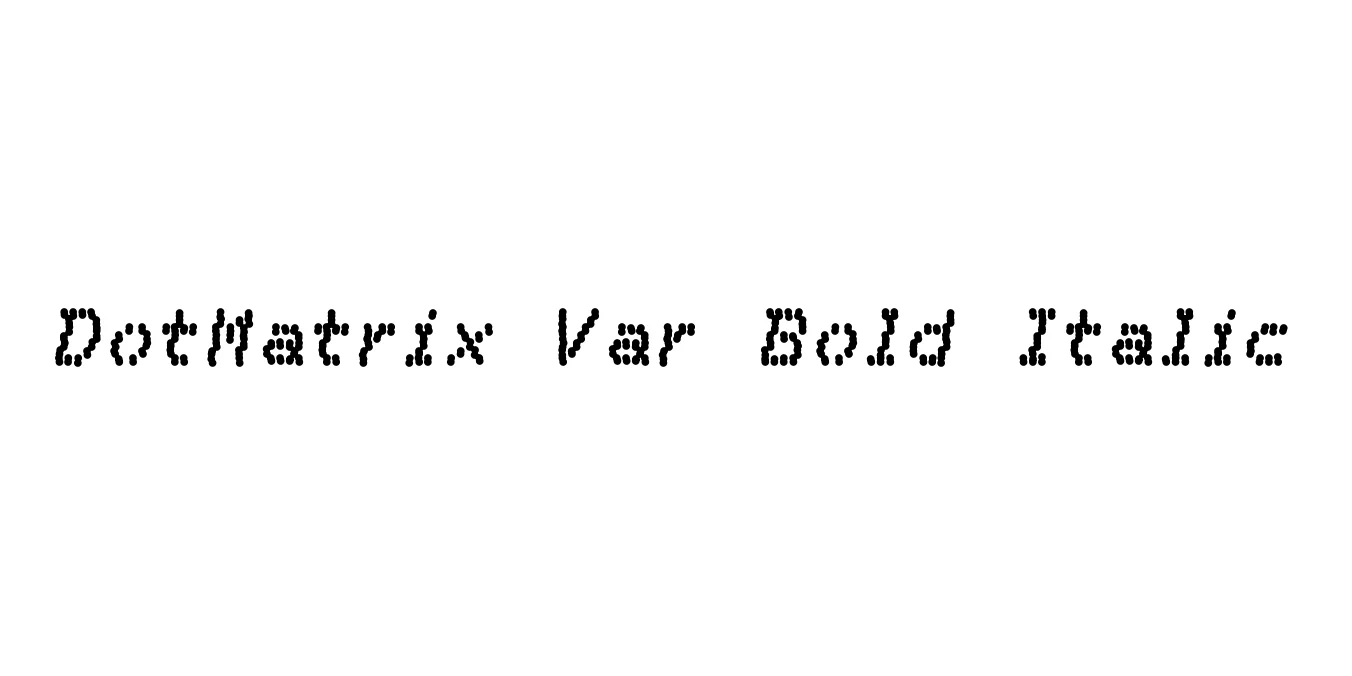
DotMatrix Var Bold Italic
Designed by Paul Lloyd
| Category | Pixel / Bitmap |
| Designer | Paul Lloyd |
DotMatrix Var Bold Italic is a stylized digital typeface that captures the nostalgic essence of early computing and low-resolution ticket printing. Characterized by its discrete circular points, this variant provides a dynamic slanted aesthetic while maintaining a robust, heavy weight. It is designed to emulate the mechanical output of 1980s dot matrix printers and early monochrome monitor displays, making it an essential tool for retro-tech aesthetics.
The variable bold italic iteration offers enhanced emphasis and a sense of movement that standard pixel fonts often lack. Each dot is precisely spaced to ensure maximum legibility despite the fragmented nature of the letterforms. It is widely utilized in contemporary graphic design to evoke industrial precision, vintage gaming culture, and futuristic sci-fi themes.
DotMatrix Var Bold Italic Best Uses
Ideal for vintage-style HUD elements and retro arcade interfaces.
Perfect for posters, flyers, and merchandise with a techno or rave aesthetic.
Suitable for technology startups seeking a nostalgic or mechanical identity.
Effective as a decorative display font for headers in tech-focused layouts.